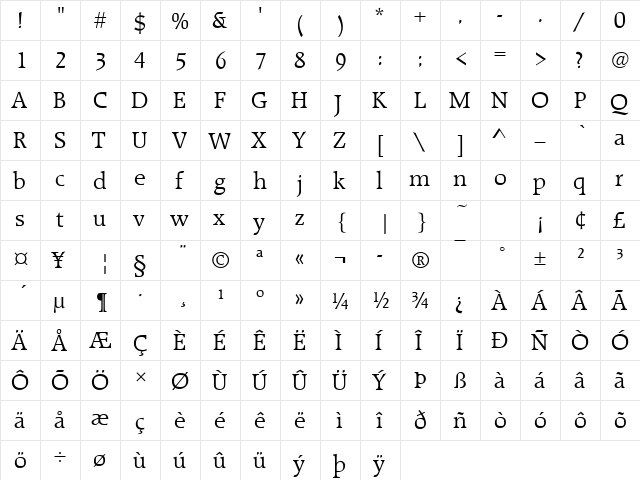
URWRadonD Regular
Design Context for URWRadonD Typeface
URWRadonD offers clean, dependable letterforms without strong stylistic allegiance, making it a practical choice for designers who need flexibility.